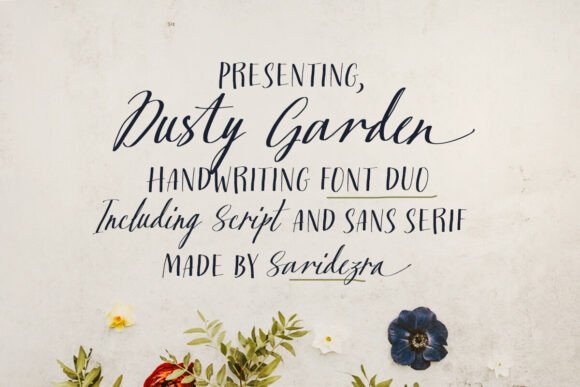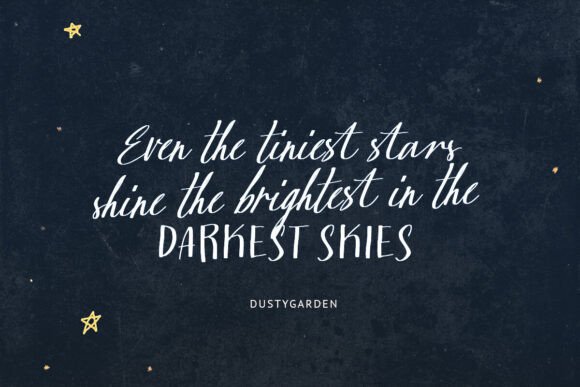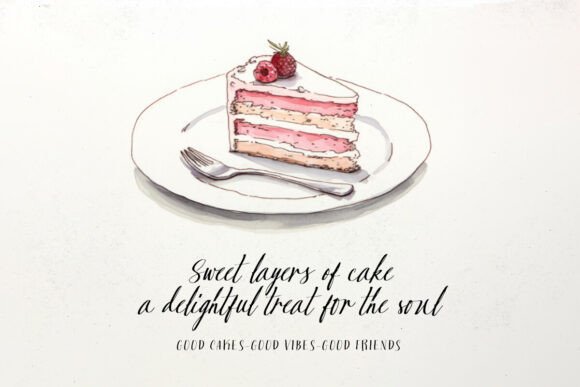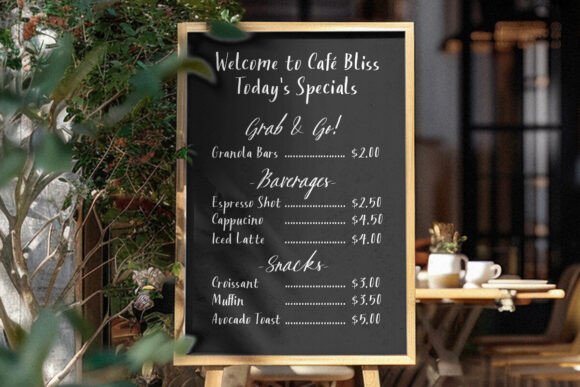
Dusty Garden Font: Handwritten Script & Sans for Elegant Wedding Design
About the Dusty Garden Font
Meet Dusty Garden Font, a stunning font that brings a touch of elegance and professionalism to any design. Dusty Garden is a font family including sans and script that match each other. From beautiful script that have ligatures and end alternate to simple yet natural sans. You can use this font for any purposes, such as wedding invitations, logo, menu list, or any designs that need handmade and handwritten touch. This font also support multi language.
Dusty Garden excels in projects requiring a handcrafted, romantic feel. It’s ideal for branding applications needing a touch of elegance, particularly wedding invitations, stationery, and short-form marketing materials like brochures or social media graphics. The script is perfect for headlines and short text blocks, while the sans serif works well for supporting text. Avoid using the script for large bodies of text or UI elements where legibility is paramount.
The sans serif’s readability is best utilized for short descriptions or supporting information within a design. Its neutral tone allows the script to take center stage. For optimal pairings, consider a classic serif like Garamond for a sophisticated contrast or a geometric sans-serif like Futura for a modern juxtaposition. Alternatively, a playful script like Allura could enhance the romantic feel, while a clean sans-serif like Open Sans would provide a strong, legible counterpoint.
Dusty Garden’s overall personality is romantic and elegant, yet approachable. Its handcrafted aesthetic conveys warmth and authenticity, making it suitable for brands focused on artisanal goods, beauty, or the wedding industry. Careful consideration of text length and context is key to maximizing its impact.